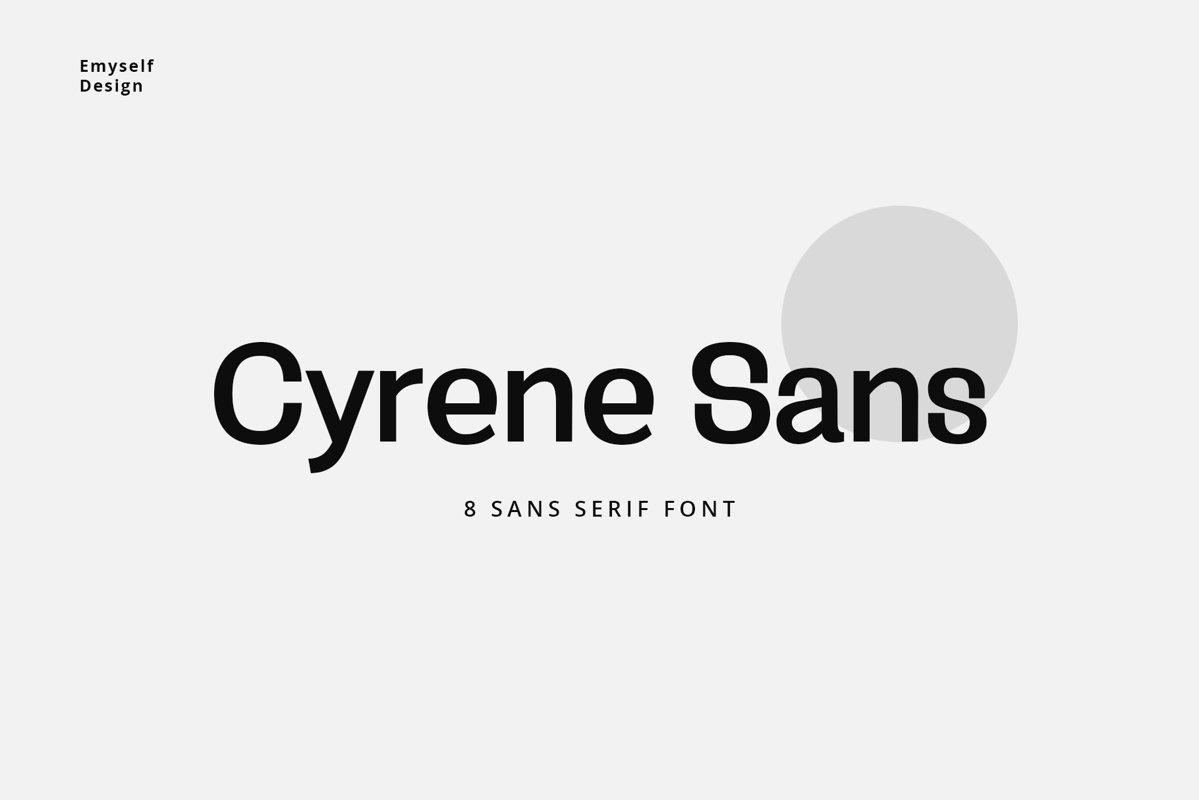
Cyrene Sans
Cyrene is a sans serif font that looks modern, clean and minimalist. This font has 8 styles: Thin, ExtraLight, Light, Regular, Medium, SemiBold, Bold, and Black. This font is designed with a variety of reference fonts, and is made so easy to combine and use for graphic design purposes.
This font has several features such as character set, ligature, multi-language support, and is available in 8 styles. This font is very suitable for use in your project such as: branding, UI, logo, magazine, poster and others.